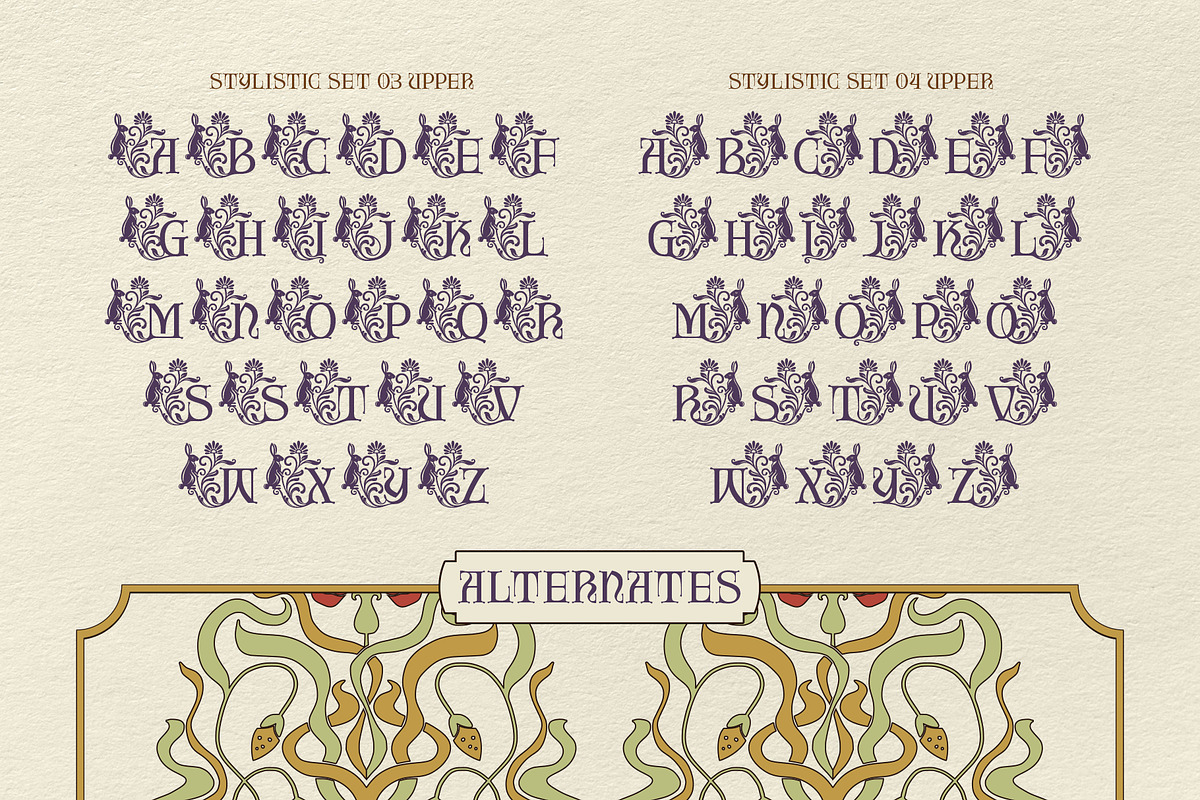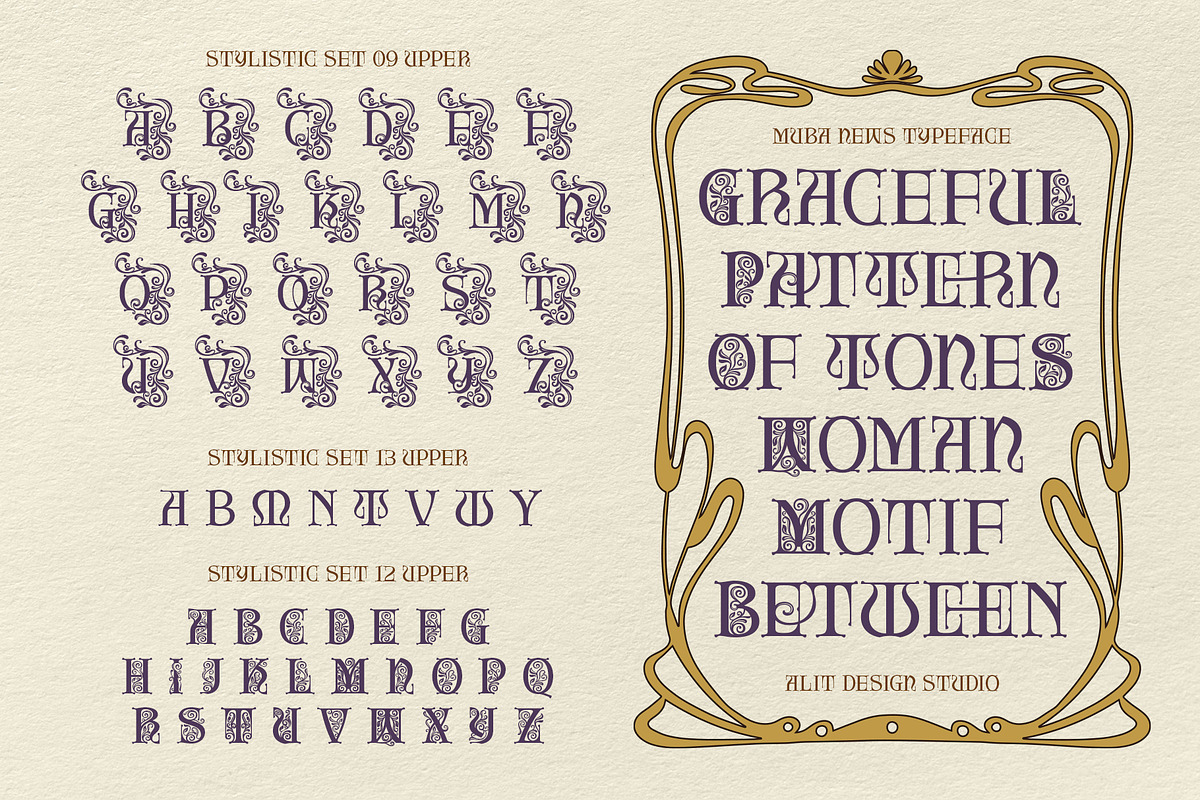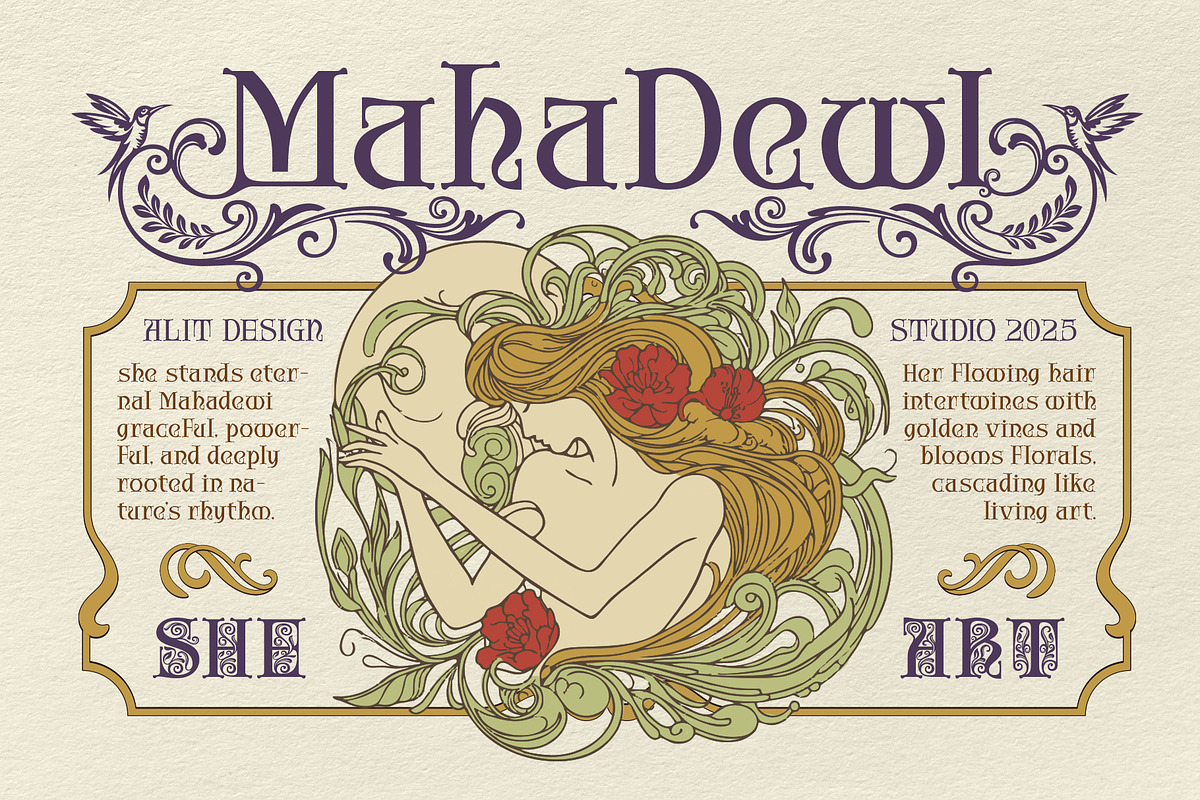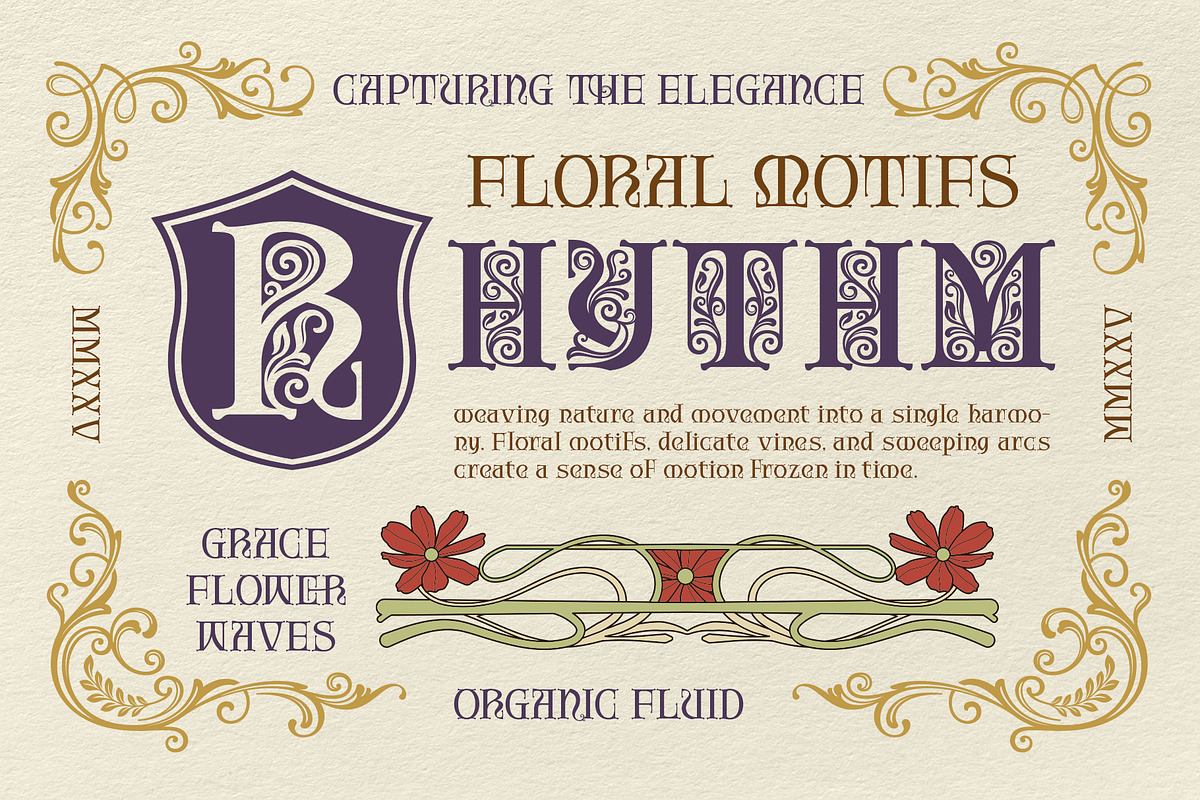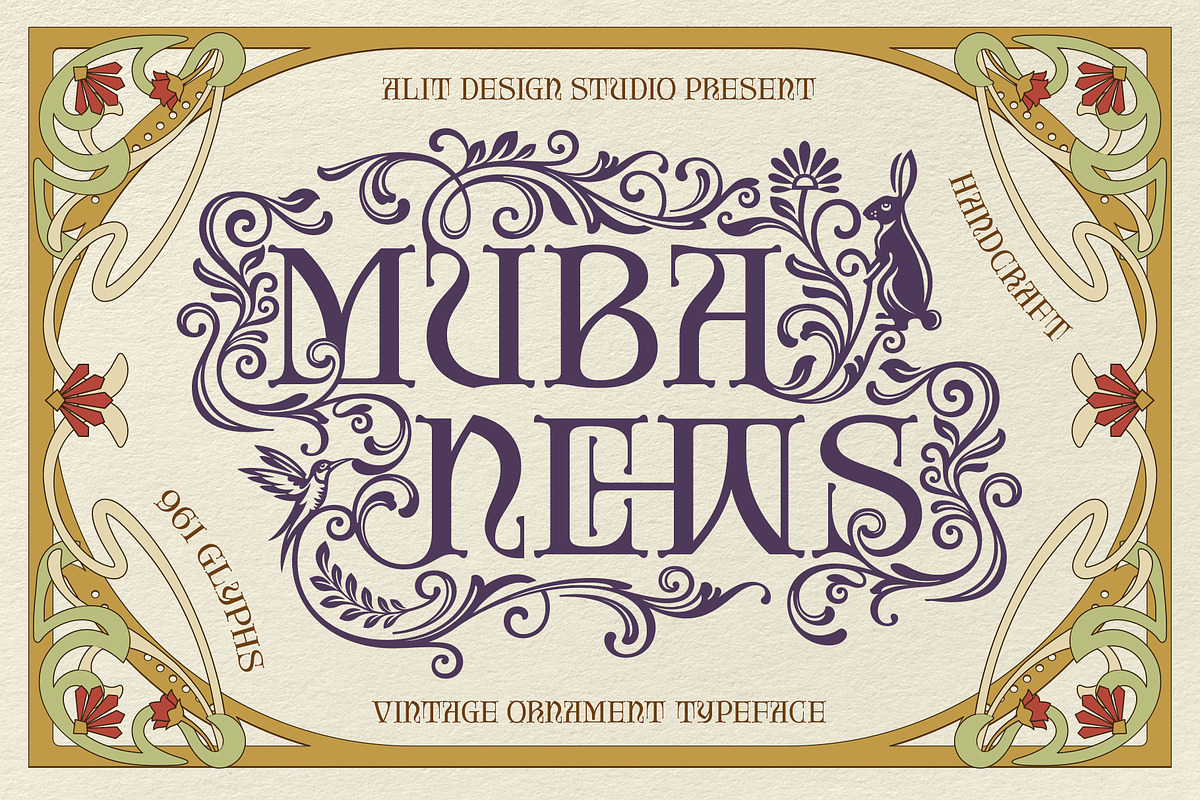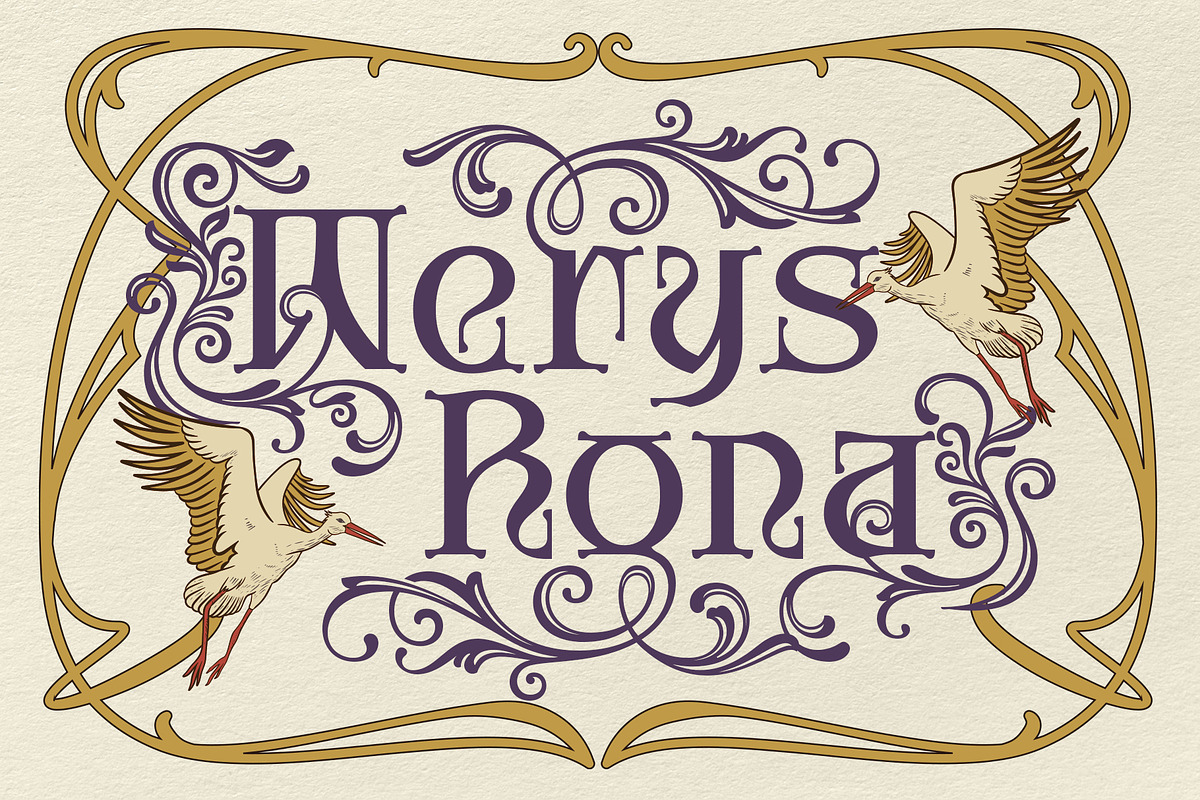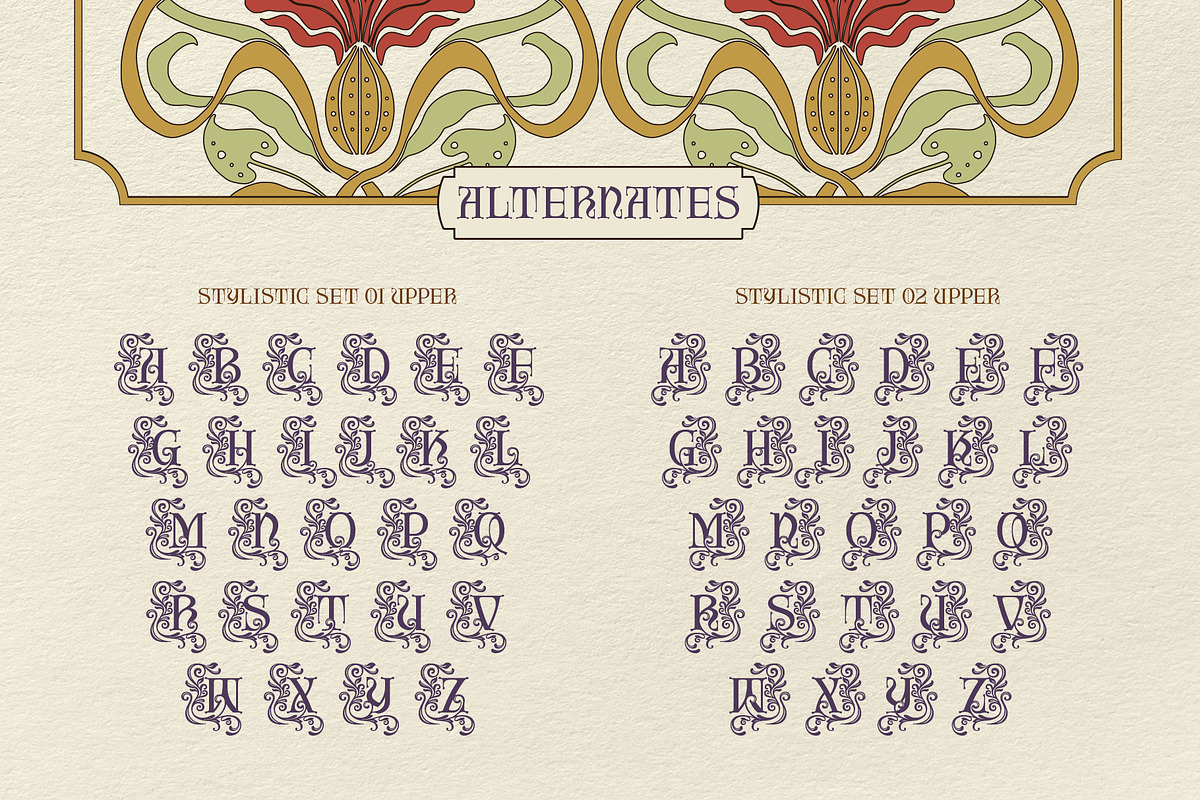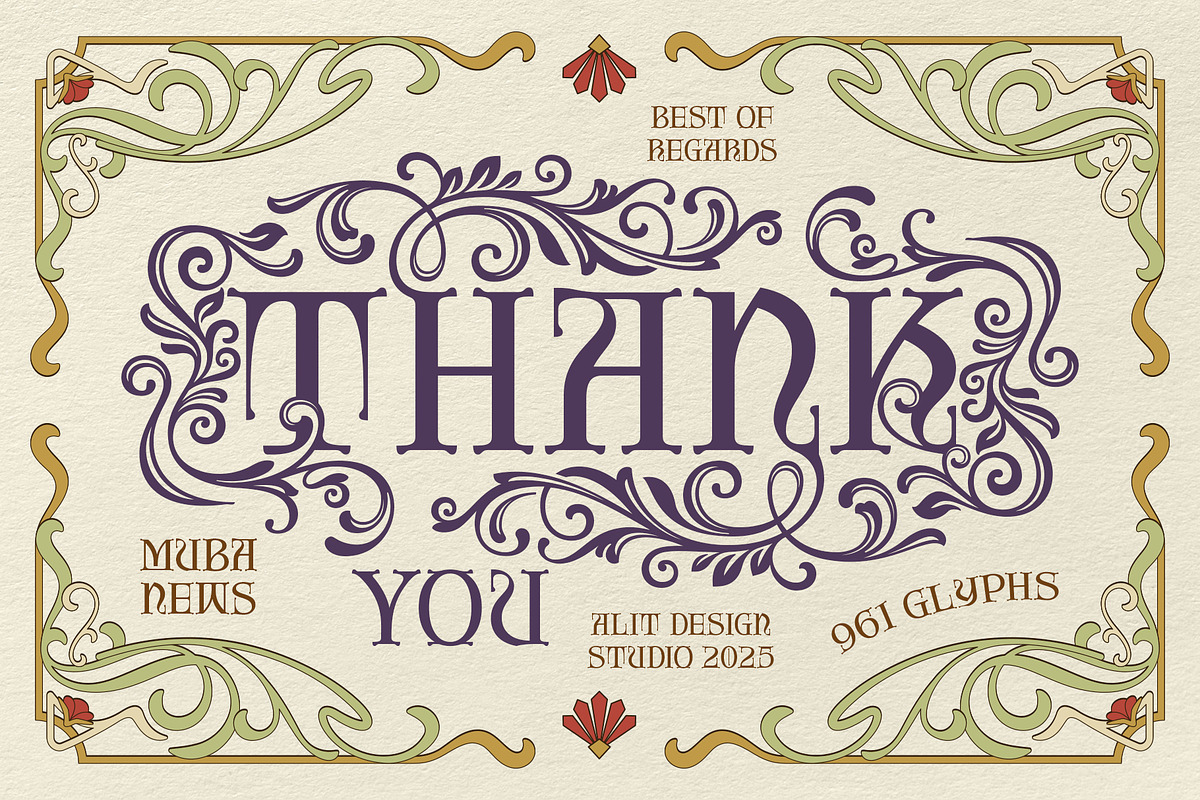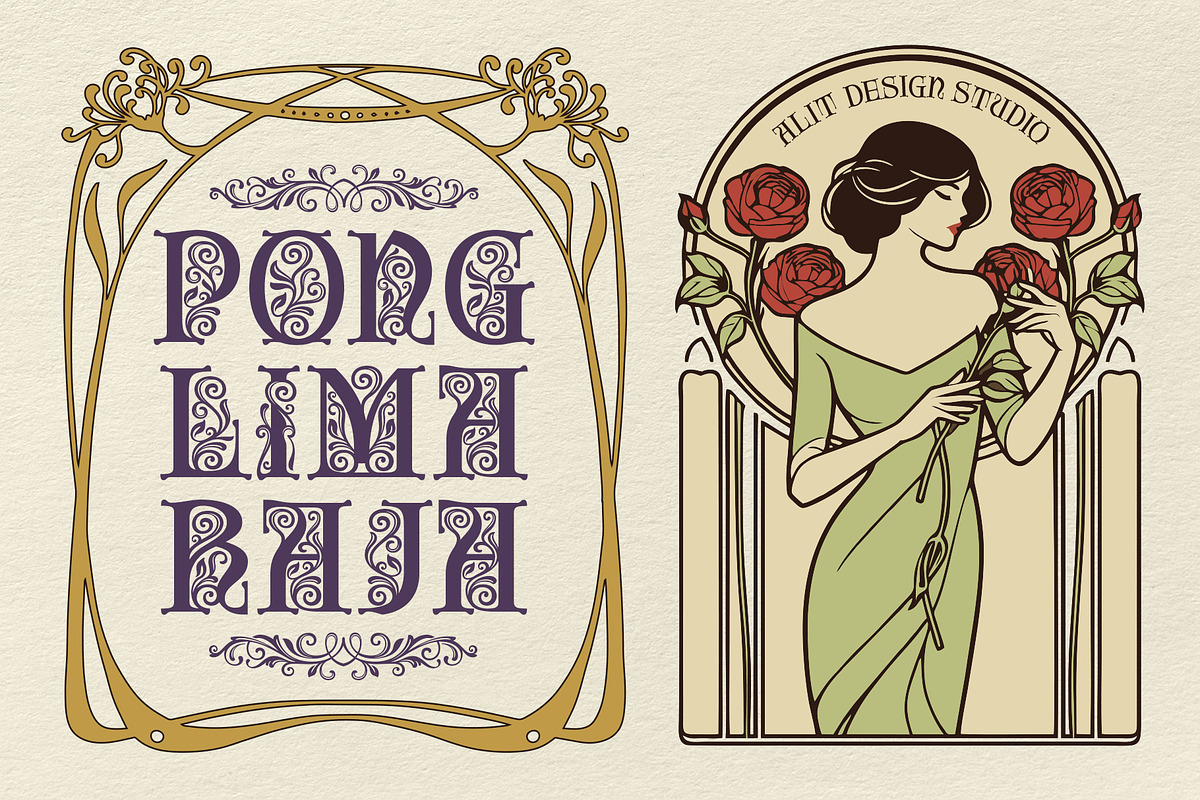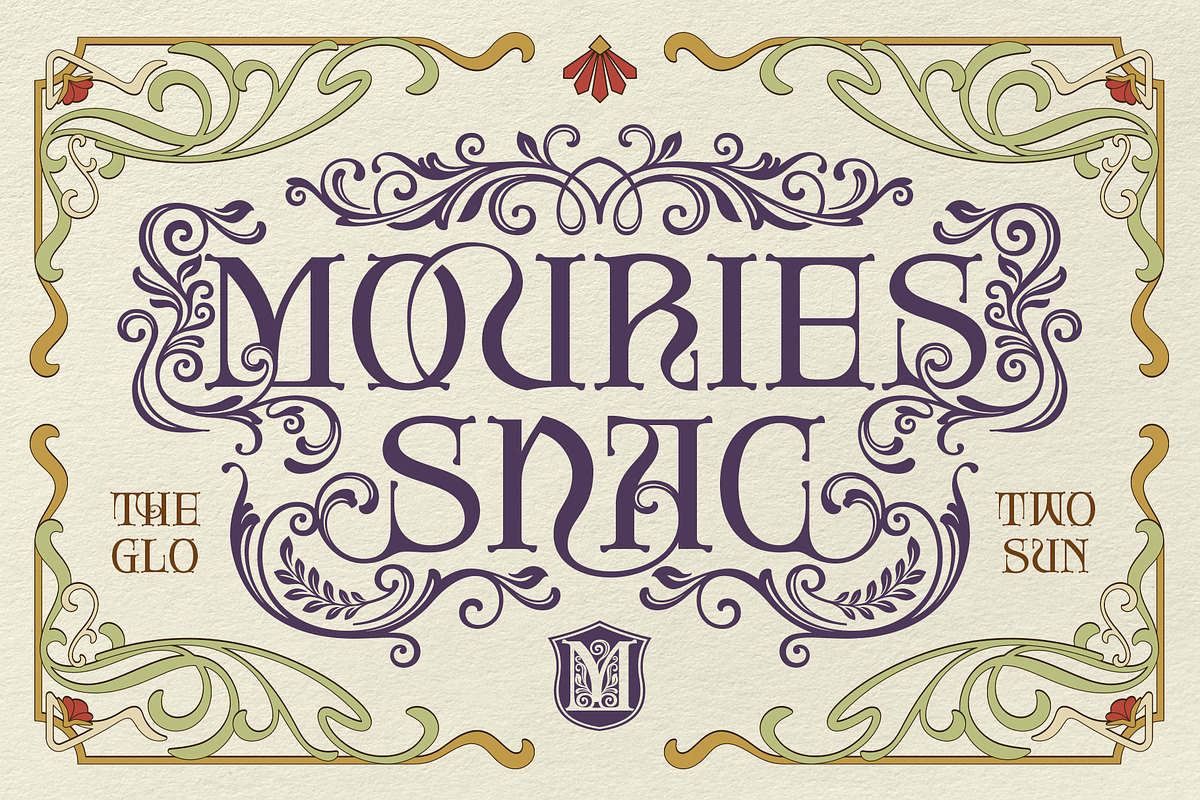
Muba News Typeface
Muba News Typeface: An Elegant Art Nouveau Journey
Step back in time and capture the enchanting spirit of the Art Nouveau era with Muba News, a breathtakingly detailed vintage ornament typeface from the artisans at Alit Design Studio. This font is not merely a set of letters; it is a masterpiece of design, meticulously handcrafted to bring the organic elegance and intricate beauty of the late 19th and early 20th centuries to your modern creations.
Inspired by the graceful, flowing lines of nature, Muba News weaves together delicate vines, blooming florals, and whimsical creatures into a harmonious typographic symphony. Every character is a work of art, featuring sweeping curves and ornate details that evoke a sense of timeless romance and sophisticated charm. As seen in the elegant "Mahadewi" and "Golden Klenchi" posters, this typeface is perfect for storytelling, creating a world where every word is wrapped in beauty.
A Universe of Creative Possibilities
Muba News is a true powerhouse, boasting an incredible 961 glyphs that provide an unparalleled level of customization. This extensive character set ensures that you can craft truly unique and captivating designs.
- Expansive Stylistic Sets: Unlock a world of creativity with numerous stylistic alternates for each letter. Whether you desire a subtle flourish or a full floral embellishment, Muba News offers a vast library of options (including Stylistic Sets 1 through 14) to perfectly match the mood of your project.
- Elegant Ligatures: Create a seamless, natural flow in your text with a rich collection of ligatures for both uppercase and lowercase letters. These custom pairings ensure your typography looks authentically handcrafted and connected.
- Exquisite Bonus Ornaments: To complete your design toolkit, Muba News includes a stunning set of bonus ornaments. These intricate dividers, corners, and flourishes are the perfect finishing touch for creating elegant borders and separating text with artistic flair.
- Authentic Vintage Feel: The typeface masterfully captures the essence of vintage print, making it ideal for projects that require a touch of history, luxury, and artistry.
- Luxury Branding & Logos: Create unforgettable identities for boutiques, artisans, wineries, and high-end brands.
- Elegant Wedding Invitations: Design stationery that radiates romance and sophistication.
- Captivating Poster & Book Cover Design: Craft headlines and titles that draw the eye and tell a story.
- Bespoke Packaging: Elevate your product packaging for items like cosmetics, chocolates, and specialty goods.
- Editorial & Magazine Layouts: Add a touch of classic elegance to headlines and feature sections.
- 961 Total Glyphs
- Extensive Stylistic Alternates
- Uppercase & Lowercase Ligatures
- Bonus Ornaments